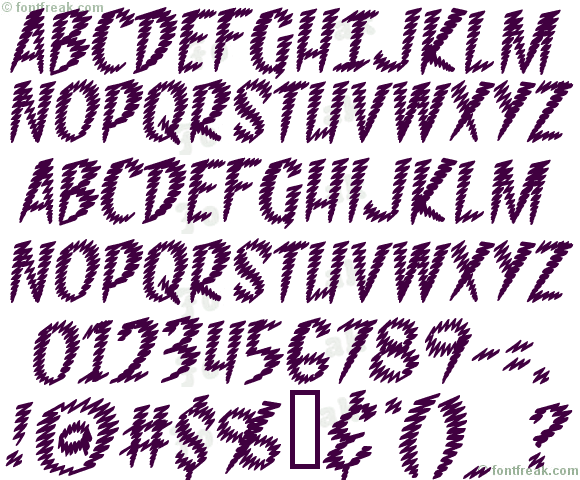
Feedback BB
Feedback BB Italic
About Feedback
The Feedback font by Blambot Fonts is a striking display typeface that embodies a unique and dynamic aesthetic, making it perfect for grabbing attention. This freeware font, released in 2005 by Nate Piekos, features a distinctive design characterized by its irregular stroke weight and energetic flair. The letters are stylized with a bold, jagged appearance, creating a sense of movement that stands out in any context. The spacing between characters is carefully balanced to maintain legibility, while the overall design exudes an edgy, contemporary vibe.
Feedback font is particularly well-suited for various creative applications. Its bold, eye-catching style makes it an excellent choice for movie posters, where dramatic titles need to capture viewer interest. Additionally, it's ideal for event flyers, especially those promoting music festivals or art shows, where a lively and vibrant typeface can enhance the overall theme. The font can also be effectively used in social media graphics, where content creators seek to convey energy and excitement. Small business owners looking to create impactful branding materials will find Feedback an appealing option for logos and promotional items that require a unique touch.
In a sea of standard fonts, Feedback stands out with its bold, expressive style. It captures attention and evokes a sense of movement, making it an ideal choice for designs that aim to resonate with audiences. Whether used in print or digital media, Feedback brings an exciting edge to any project.